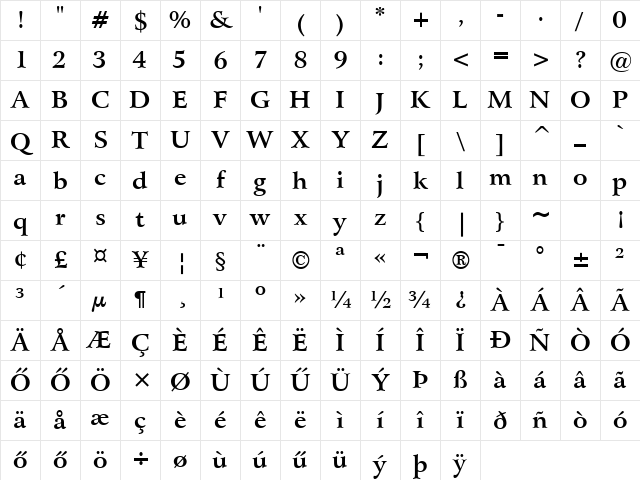
Arrus HU Bold Free Font
Arrus HU Bold
Complete Arrus HU Bold glyph index. Displaying only characters natively supported by Arrus HU Bold font.
Design Context for Arrus HU
Arrus HU is a composed and adaptable typeface that performs quietly and consistently across a wide range of design contexts. Its bold stroke weight gives it real presence on the page.